Lost and Foundry.
Fonts for good—a project to reimagine the crumbling signs around Soho into a collection of fonts to raise money for London’s homeless by Fontsmith (now part of Monotype Studio) and M&C Saatchi.
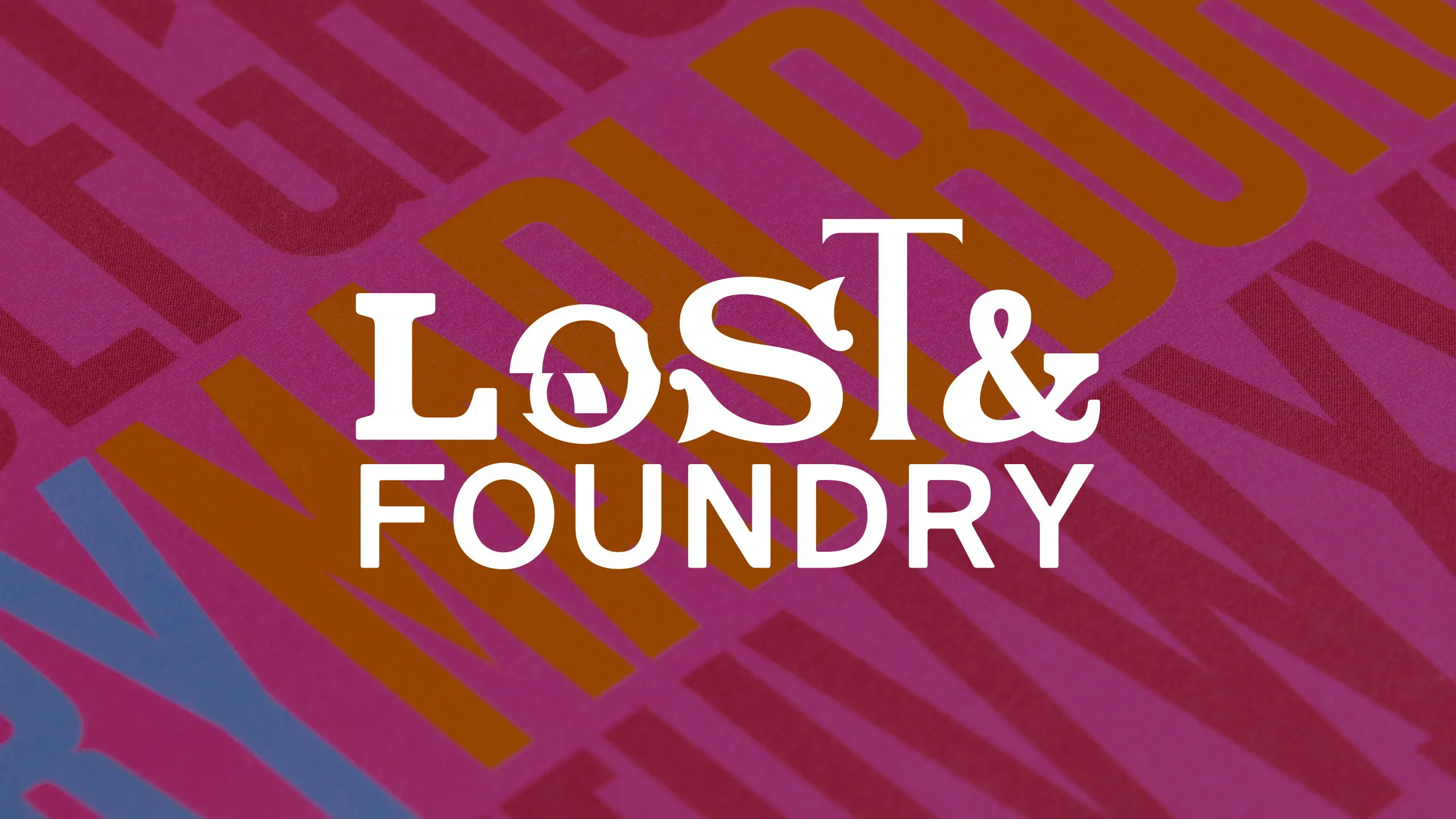
Developed by Fontsmith (now part of Monotype Studio), M&C Saatchi London and Line Form Color, the campaign sees the crumbling typefaces of Soho recovered to be sold online as a collection of display fonts, to fund the House’s vital work with London’s homeless.
The House of St Barnabas is a social enterprise that aims to break the cycle of homelessness through its Employment Academy, a programme that works with people who have been affected by homelessness and supports them into lasting work. It does this by operating as a member’s club, with all profits from the club going to the Employment Academy.
For this campaign Fontsmith worked with M&C Saatchi London to develop seven fonts from crumbling signs around Soho, with each named according to the specific content or location relevant to them, such as Berwick, Cattle & Son and Marlborough.
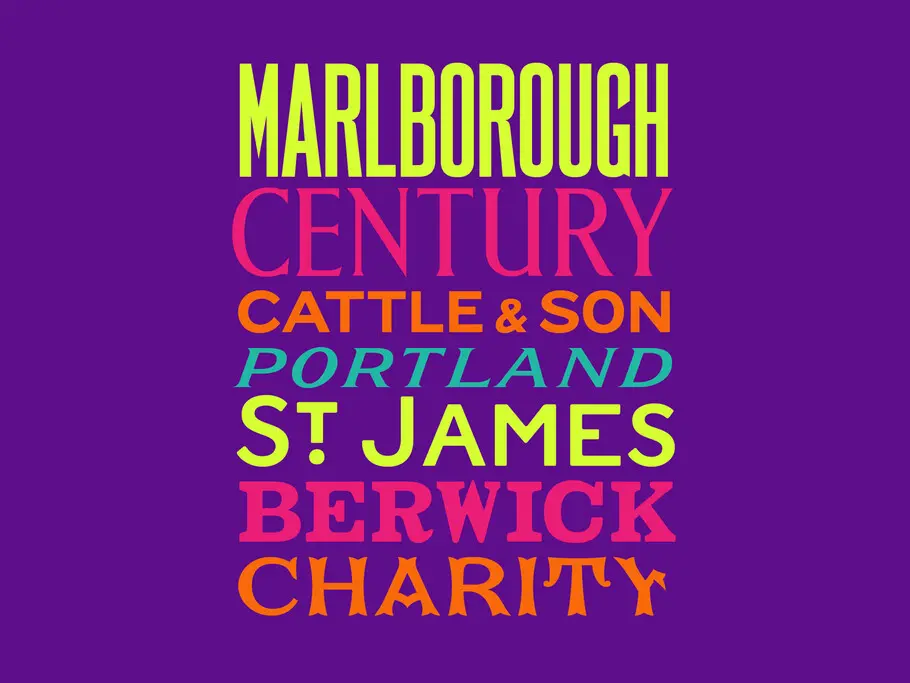
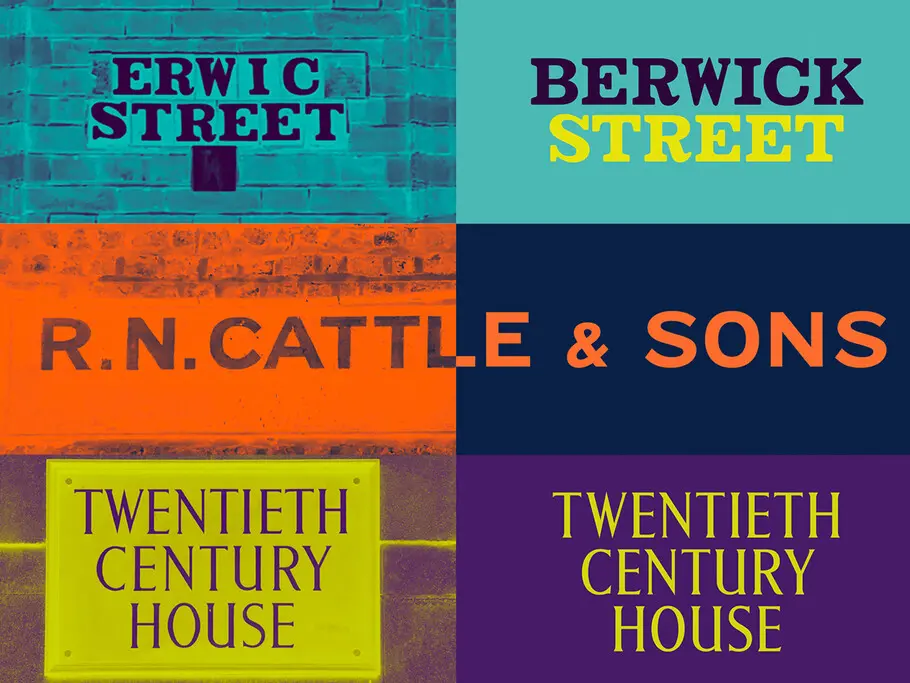
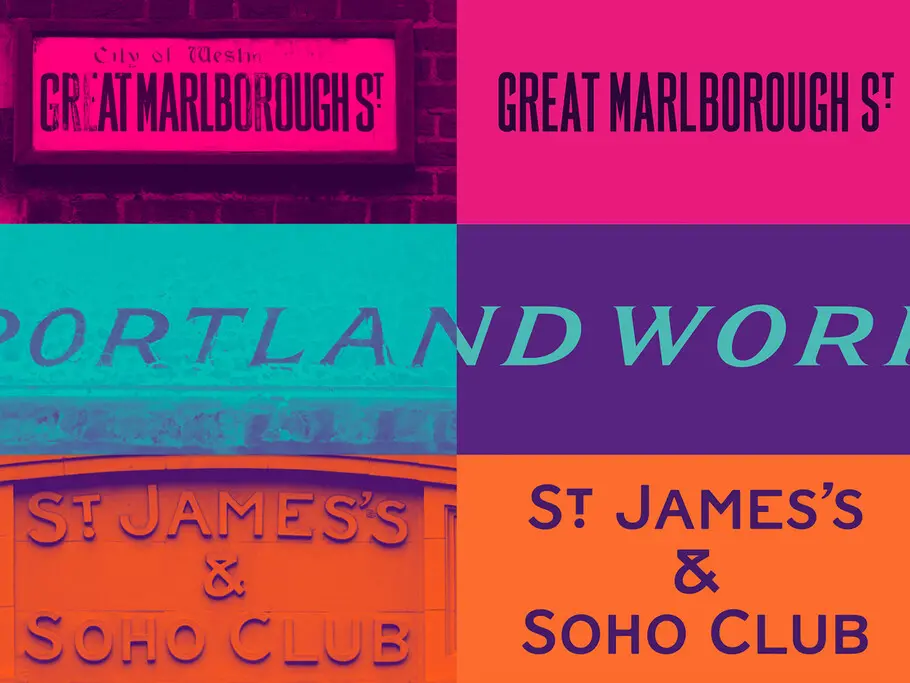
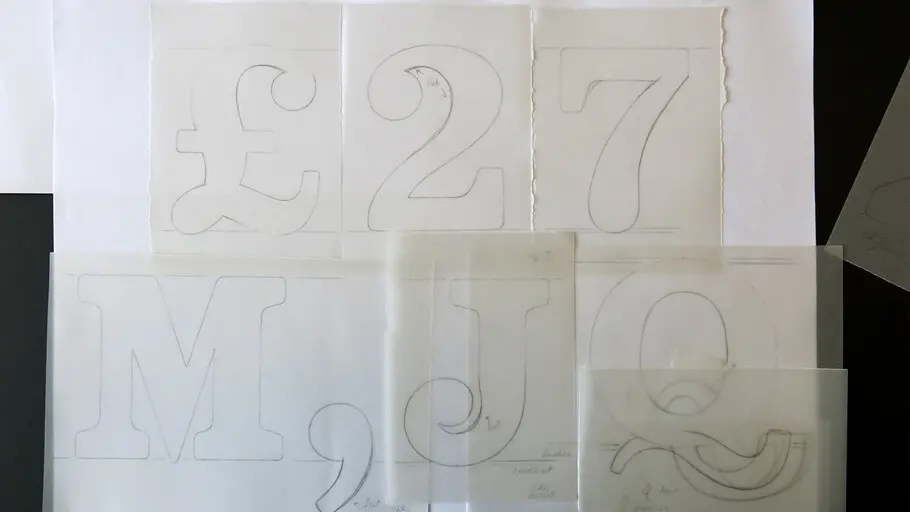
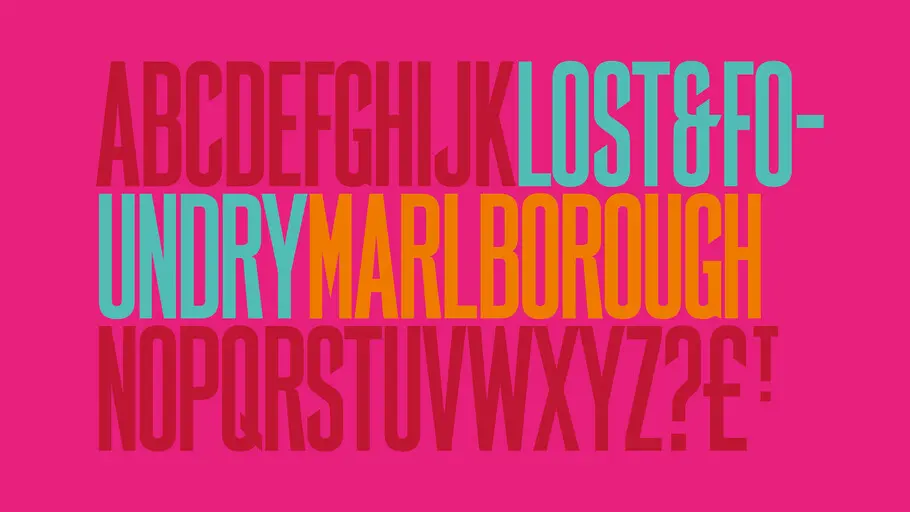
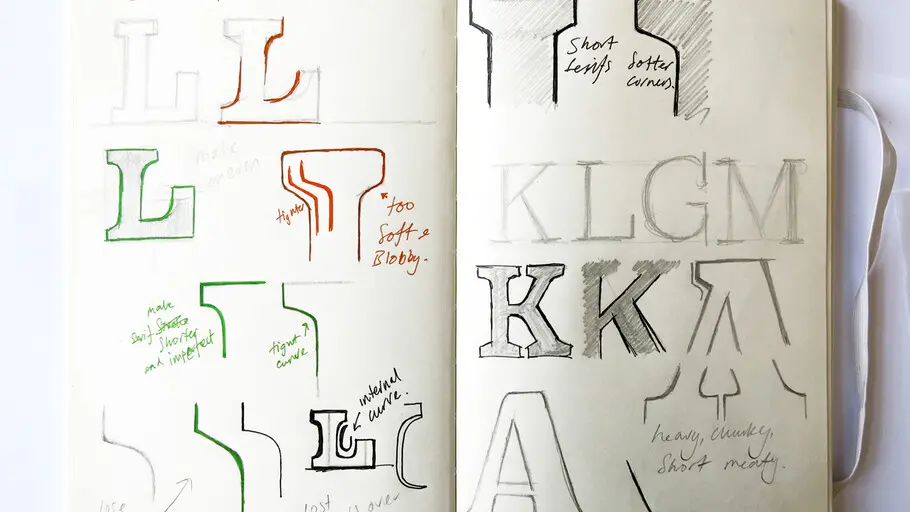
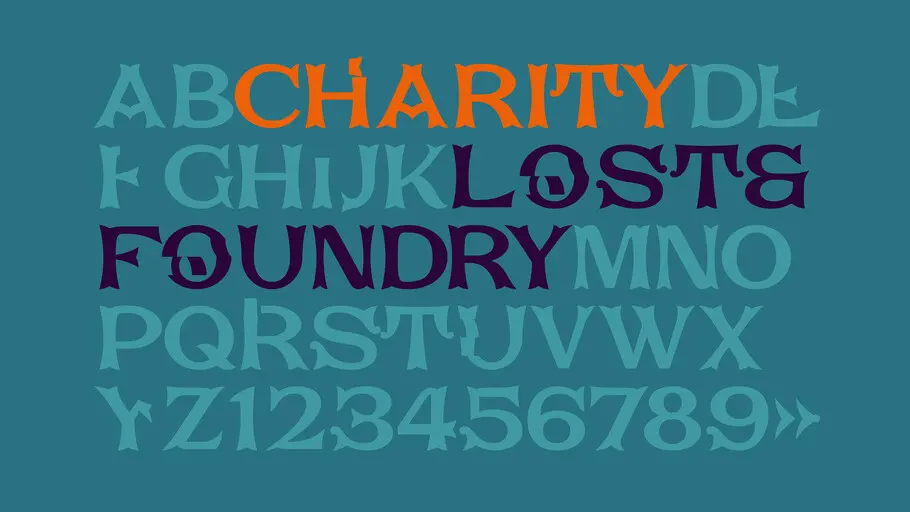
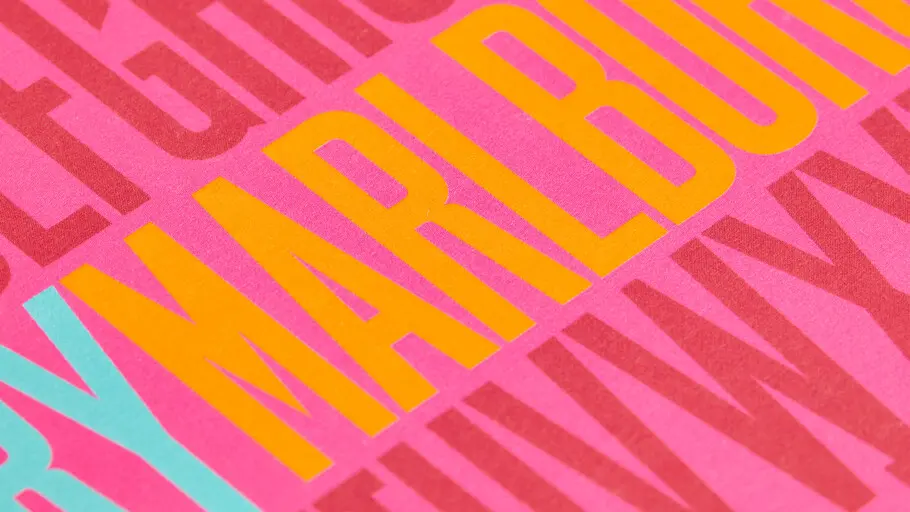
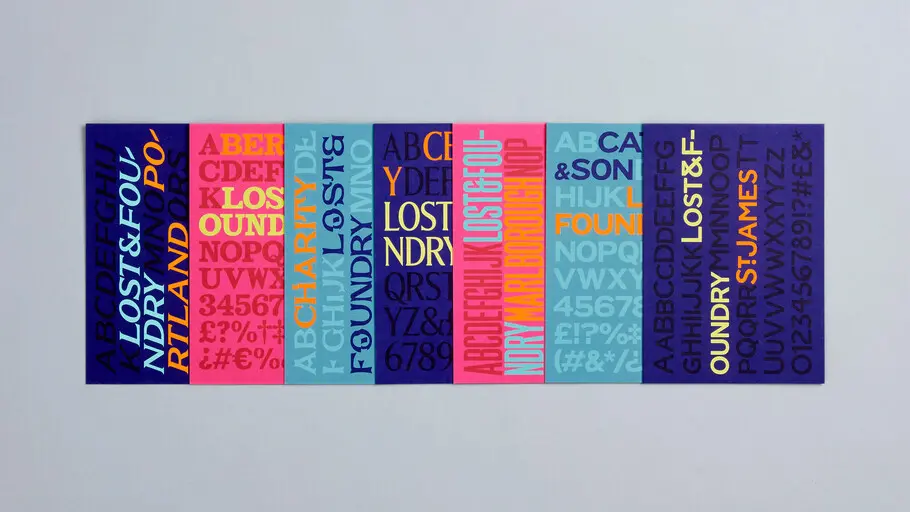
Backround.
Lost and Foundry was a charity project developed by Fontsmith, M&C Saatchi London and Line Form Color to help raise money for the House of St Barnabas and their vital work with London’s homeless. The campaign saw the crumbling typefaces of Soho recovered to be sold online as a collection of display fonts, with all proceeds going to the House.
The House is a social enterprise that aims to break the cycle of homelessness through its Employment Academy, a programme that works with people who have been affected by homelessness and supports them into lasting work.
Execution.
We worked with M&C Saatchi London to develop seven fonts from crumbling signs around Soho, with each named according to the specific content or location relevant to them, such as Berwick, Cattle & Son and Marlborough.
The fonts were hand drawn and turned into fully functioning fonts by Fontsmith designers Stuart de Rozario and Pedro Arilla. This involved adapting and extending the missing characters to make useful and crafted designs out of them, with it taking 3 months to digitise and design a workable series of fonts.
Result.
“We’ve been operating as a social business and charity since 2013, and are proud of our innovative model which helps to support people affected by homelessness back into lasting work. But, for us to keep supporting people in this way, we need to keep innovating too. Lost & Foundry is the culmination of a unique partnership between the House, M&C Saatchi and Fontsmith which taps into Soho’s history, creativity and originality to help us raise vital funds and support more people back into paid work.”